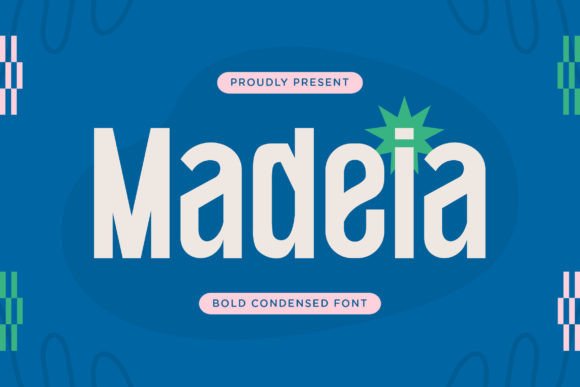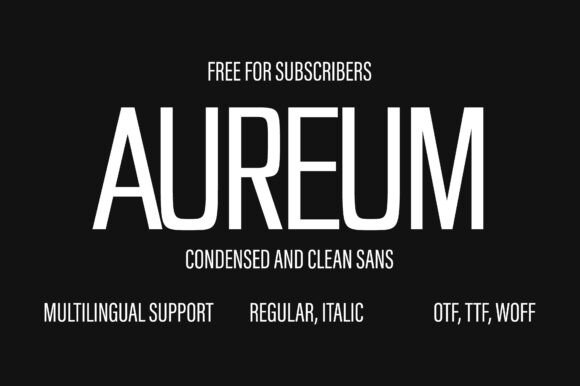
21 Most Popular Condensed Fonts for Professional Projects on Canva
21 Condensed Fonts for Pro Canva Projects (2026)
Discover 21 of the most popular condensed fonts available in Canva, perfect for professional projects. This curated list showcases sleek, space-saving typefaces ideal for branding, marketing, and visual content, with recommendations for commercial use and Creative Fabrica alternatives.
The rise of condensed fonts for Canva has transformed how designers and content creators optimize their work for both impact and clarity. Condensed fonts allow you to fit bold statements into limited spaces, making them perfect for branding, product packaging, banners, and digital ads. For creators, bloggers, Etsy or Amazon sellers, and small business owners, choosing the right professional condensed font ensures every project feels tailored, modern, and visually striking. Canva’s versatile font library, paired with premium alternatives from Creative Fabrica, enables users globally to craft attention-grabbing visuals—whether it’s a chic logo or a standout Instagram post. As space-driven design trends continue, knowing which fonts work best and where to find high-quality options is crucial for maintaining a polished aesthetic in any niche. Get ready to discover top recommendations and practical advice to streamline your next Canva project. 17 Stunning Organic Fonts for Creative Projects Free
Madeia Font Modern Sans-Serif, Condensed Branding, Social Media, Fashion Lookbooks Commercial (Creative Fabrica)
Nothing Font Minimalist Sans-Serif, Ultra-Condensed Logos, Tech Startups, Posters Commercial (Creative Fabrica)
Varsity Narrow Font Vintage Sans, Narrow/Condensed Team Logos, Sports Merch, Retro Branding Commercial (Creative Fabrica)
Aureum Font Minimalist Display, Condensed Editorials, Menus, Luxury Projects Commercial (Creative Fabrica)
Montserrat (Canva Native) Geometric Sans-Serif, Semi-Condensed Websites, Presentations, Infographics Free (Canva)
Madeia Font features a sleek, modern sans-serif design with space-saving condensed proportions, making it ideal for contemporary branding and visual content. Its strong, stylish letterforms deliver instant impact without sacrificing readability, perfect for fashion lookbooks, brand identity projects, and captivating social media graphics. This font adapts seamlessly to professional layouts where clarity and flair are essential.
Nothing Font offers a minimalist, ultra-condensed look that fits bold statements into even the tightest design spaces. With a crisp sans-serif profile, it excels in tech-oriented branding, event posters, and app or SaaS identities where modernism and efficiency go hand-in-hand. Designers love its clean simplicity for big headlines and logo designs demanding high-impact style.
Varsity Narrow Font channels vintage athletic aesthetics with a condensed sans-serif twist, creating a bold and energetic presence. This font is a top pick for team logos, school or college branding, sport-themed merch, and retro-inspired packaging. Its narrow build makes it easy to fit powerful words into smaller visual spaces without losing classic appeal.
Aureum Font brings a minimalist yet luxurious feel with its refined condensed letterforms, perfect for upscale menus, magazine editorials, and elegant branding suites. Its subtle sophistication caters to high-end projects needing a modern touch, while its clean lines keep the design approachable for wider professional use in Canva.
How to Choose the Right Condensed Font for Canva Projects
Selecting the best condensed fonts for Canva requires balancing style, readability, and brand personality. Start by defining the mood and purpose of your design—modern sans-serifs like Madeia and Nothing work for tech brands or minimalist graphics, whereas retro types such as Varsity Narrow evoke vintage or sporty vibes. Consider the context: social media posts and headlines benefit from high-impact, tightly spaced letterforms, while longer texts demand clarity and minimalist details. Always review the licensing terms, especially for commercial use, to ensure compliance. Browse Creative Fabrica’s vast condensed font options when Canva’s native library doesn’t meet your stylistic needs. Testing your font choices in real layouts helps reveal the best combination of boldness and legibility for any project. 20 Essential Slab Serif Fonts for Pro Projects (2026)
What are the best condensed fonts in Canva for professional use?
Some of the top condensed fonts in Canva for professional projects include Montserrat, League Spartan, Bebas Neue, and Oswald for their versatility, modern style, and readability. For fresh alternatives or more unique looks, explore premium condensed fonts from Creative Fabrica that echo these popular Canva choices.
Can I use Canva condensed fonts for commercial projects?
Yes, most condensed fonts provided by Canva can be used for commercial projects, but it’s important to check the licensing terms for each specific font to ensure compliance, especially for logo or product usage. When in doubt or if you need more options, turn to Creative Fabrica’s fonts, which offer clear commercial licensing.
Condensed fonts can instantly elevate the look and effectiveness of your Canva projects, helping you create eye-catching branding, social media visuals, and print materials in any niche. Whether using Canva’s native selections or premium options from Creative Fabrica, these fonts offer both style and substance. Start exploring today and see how the right condensed font transforms your next professional design!